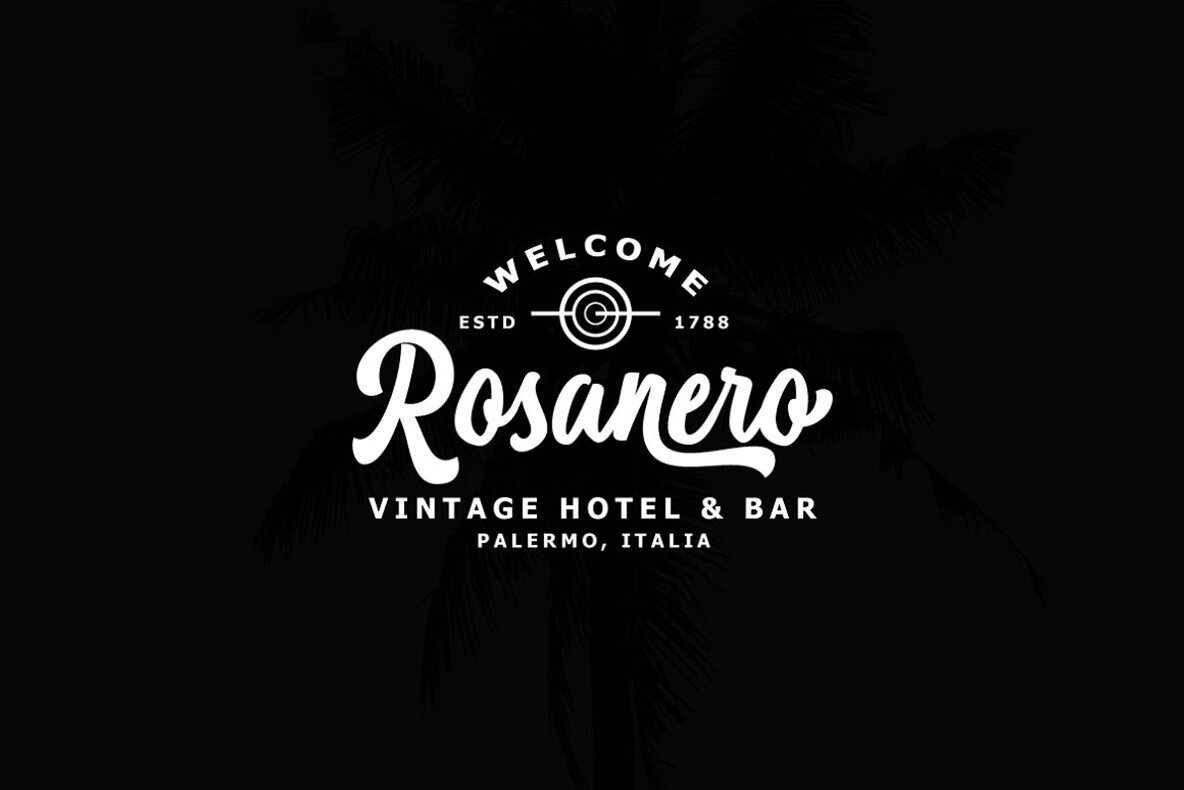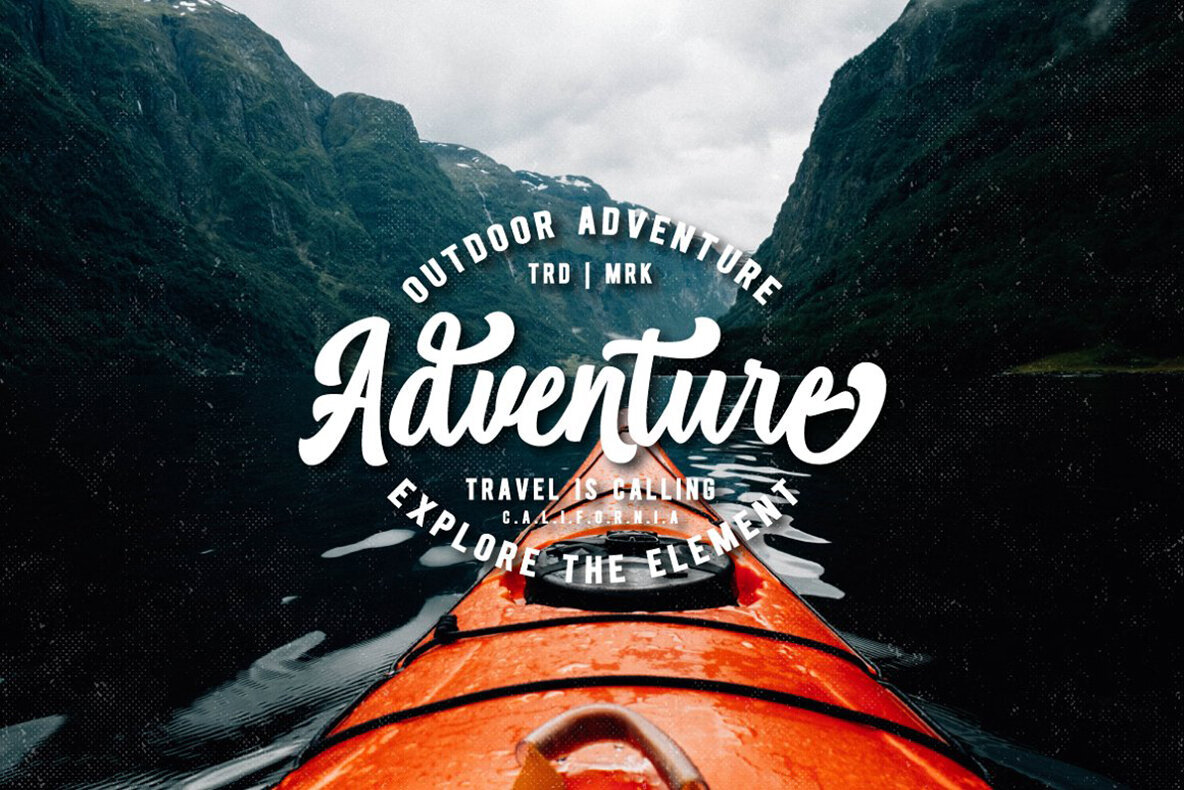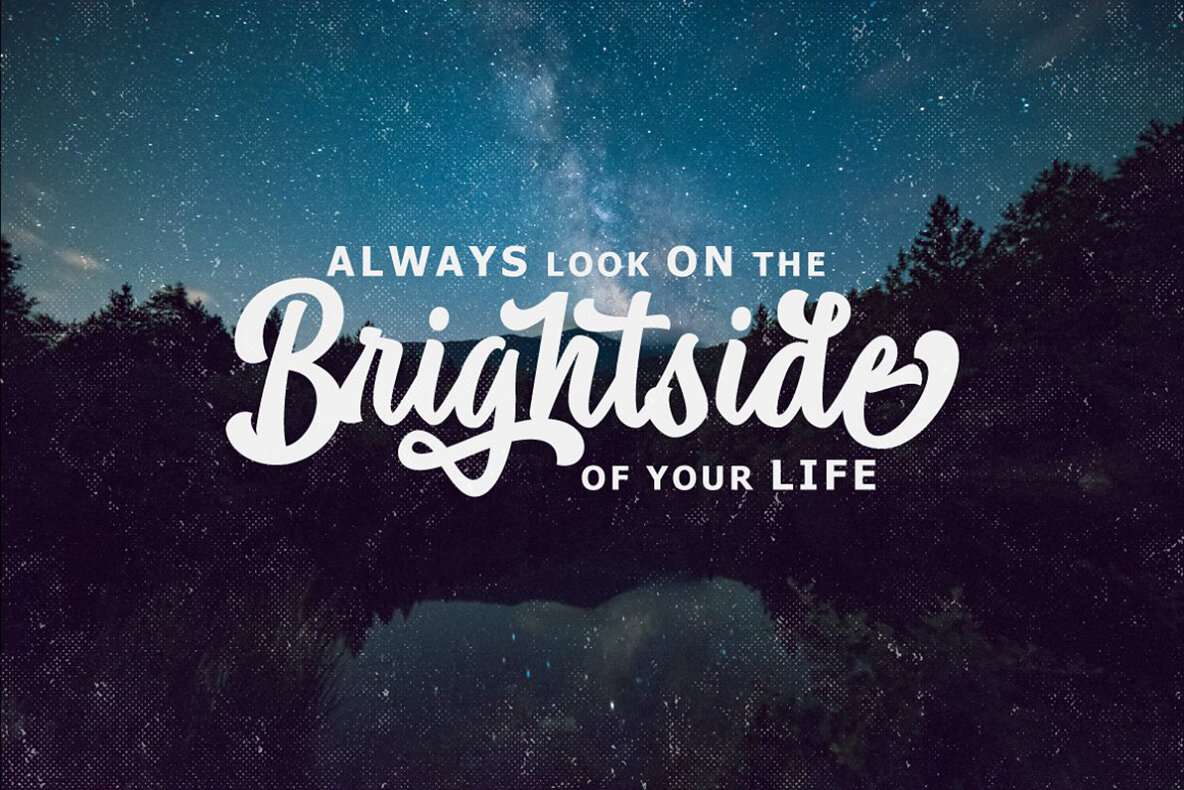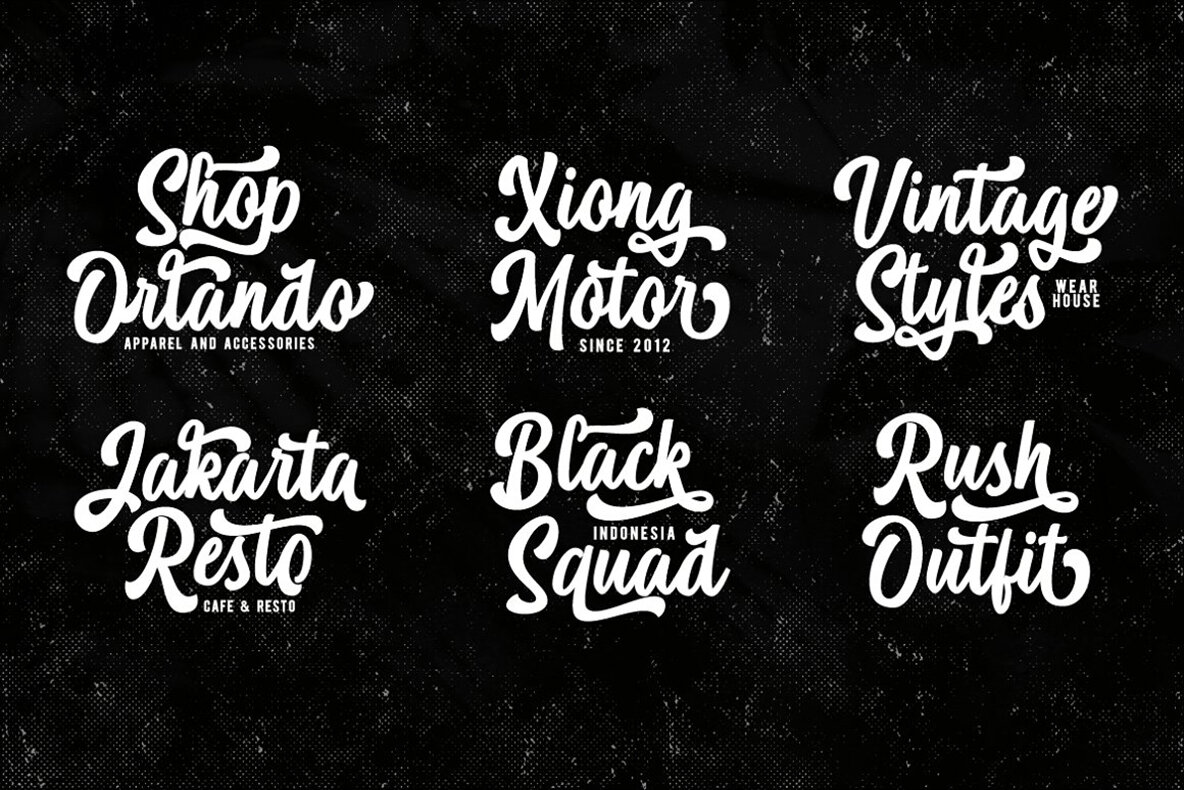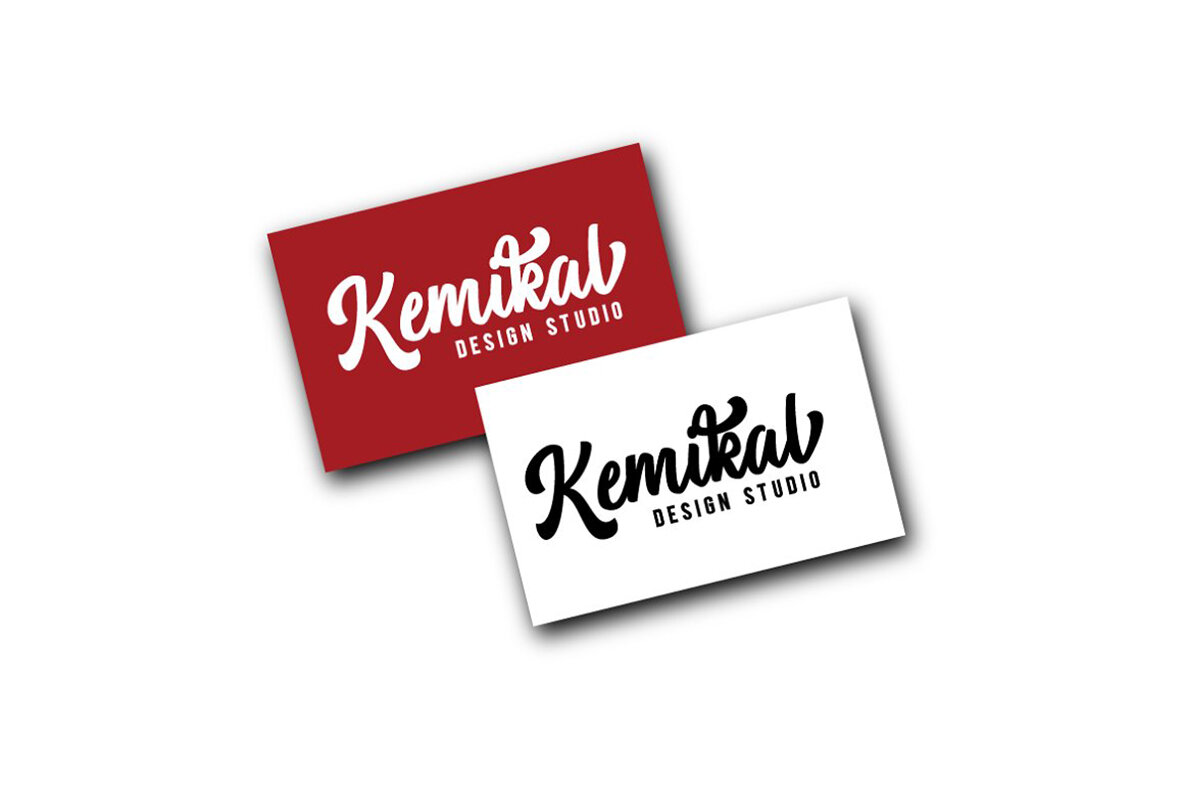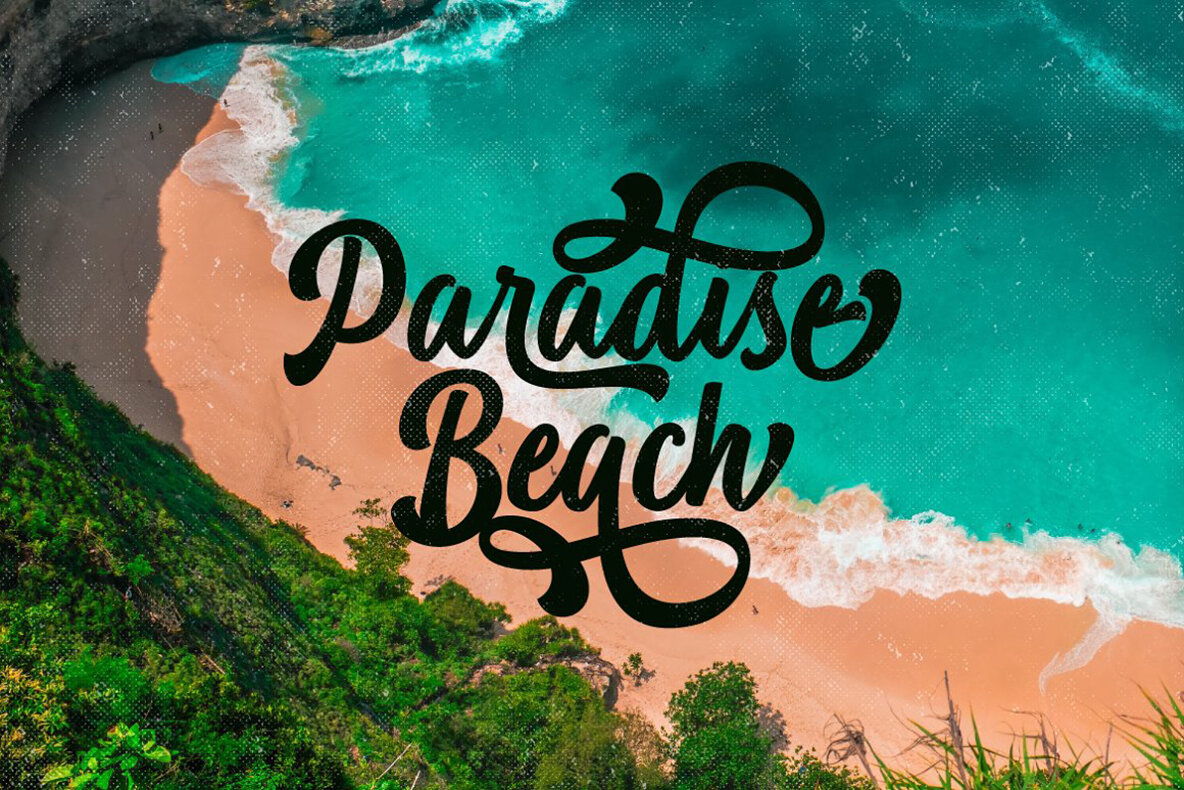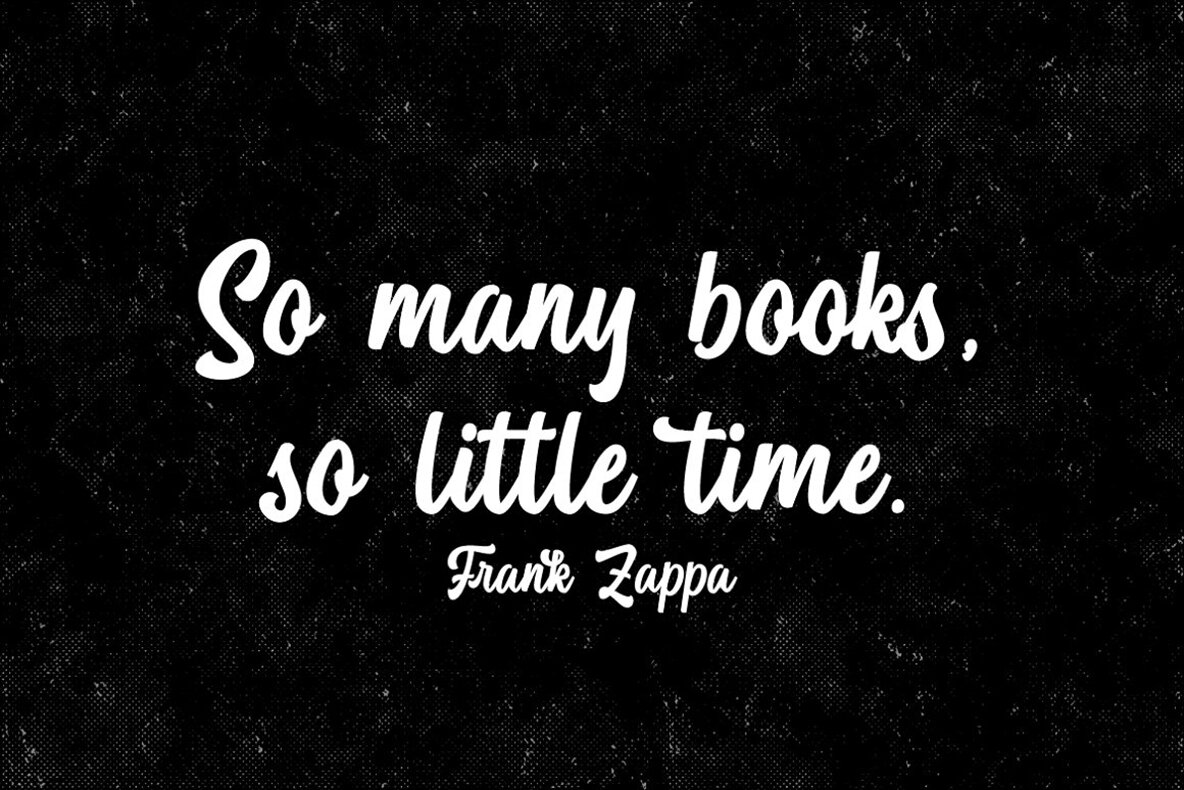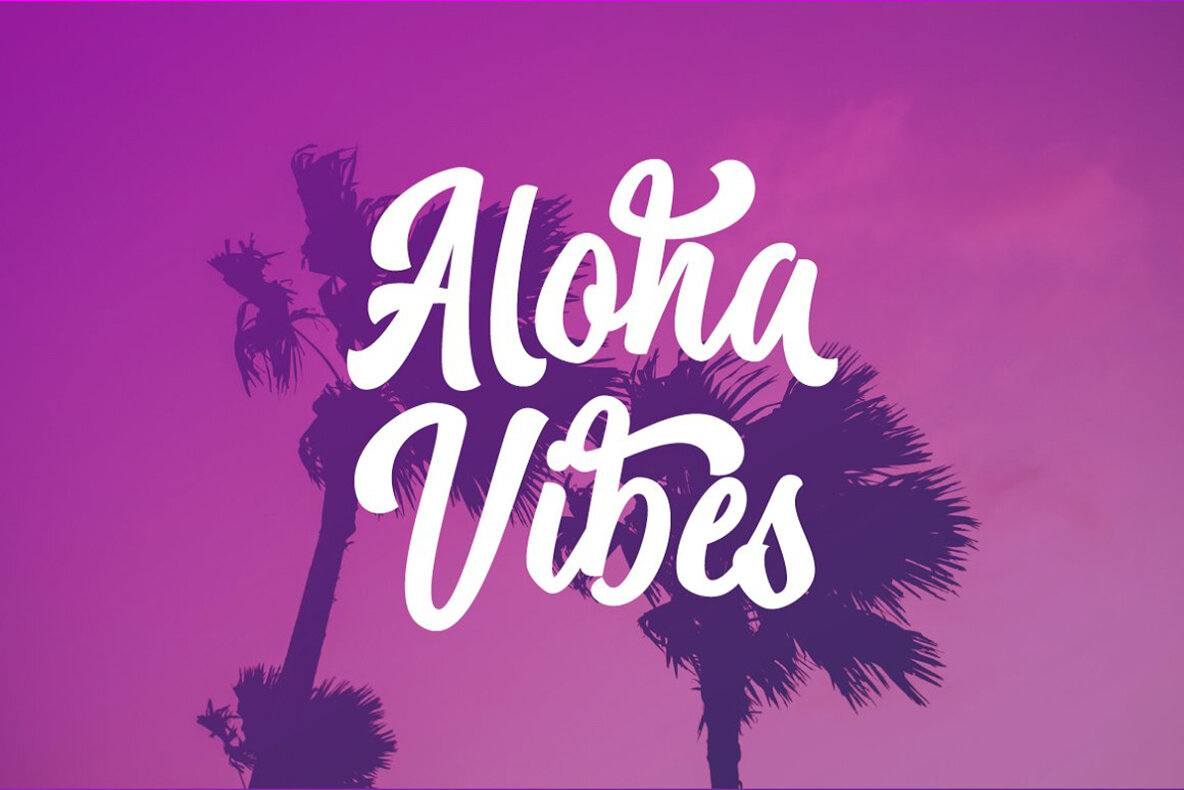
Kelsey Script Font
Kelsey Script
This bold script font is perfect for projects that aim to capture attention with stylish and elegant flair. Ideal for fashion-related designs, vintage themes, branding projects, invitations, logos, and signage, this font brings a unique and artistic touch to any design.